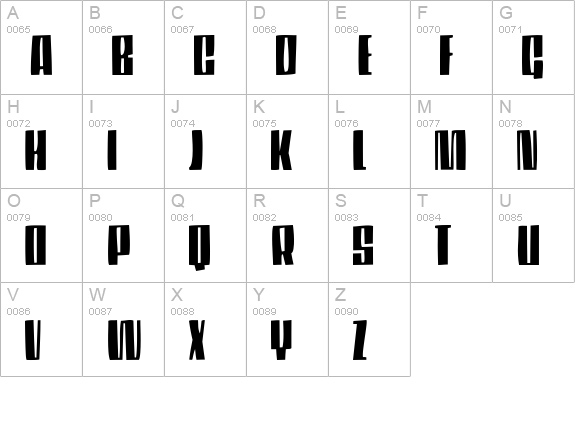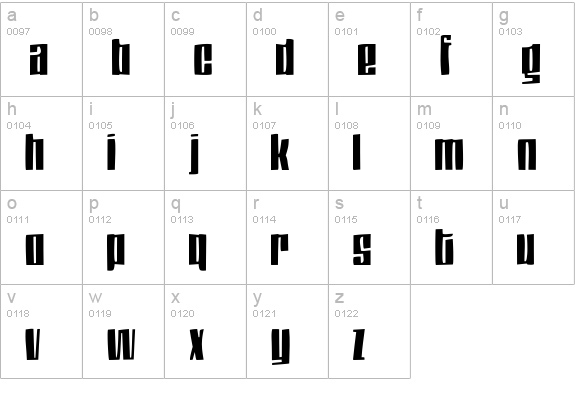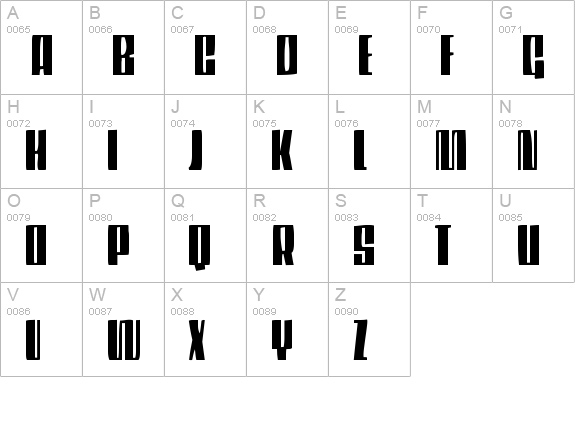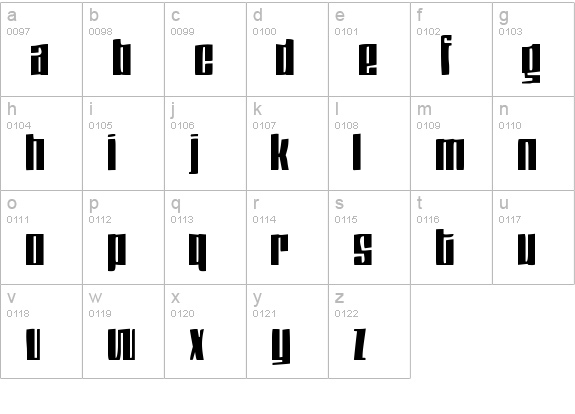
Thompson Font Details
Thompson font is a beautifully designed typeface that exudes elegance and sophistication. Its sleek and stylish letterforms are perfect for adding a touch of class to any design project. With its clean lines and balanced proportions, Thompson font offers a harmonious blend of modernity and classic aesthetics. This versatile font is suitable for a wide range of applications, from branding and packaging to editorial design and web content. Its legibility and readability make it ideal for both headlines and body text, ensuring a seamless reading experience for your audience. One of the most compelling features of Thompson font is that it is freely available to download at FontsMarket.com. This means that you can easily acquire this stunning typeface without any cost, making it an excellent choice for designers on a budget or anyone looking to add a touch of sophistication to their work without breaking the bank. Whether you're working on a personal project or a professional assignment, Thompson font will elevate your designs to new heights. Its timeless appeal and versatility make it a must-have for any typographic toolkit. So why wait? Head over to FontsMarket.com today and download Thompson font for free to unlock its full potential and bring your creative visions to life.